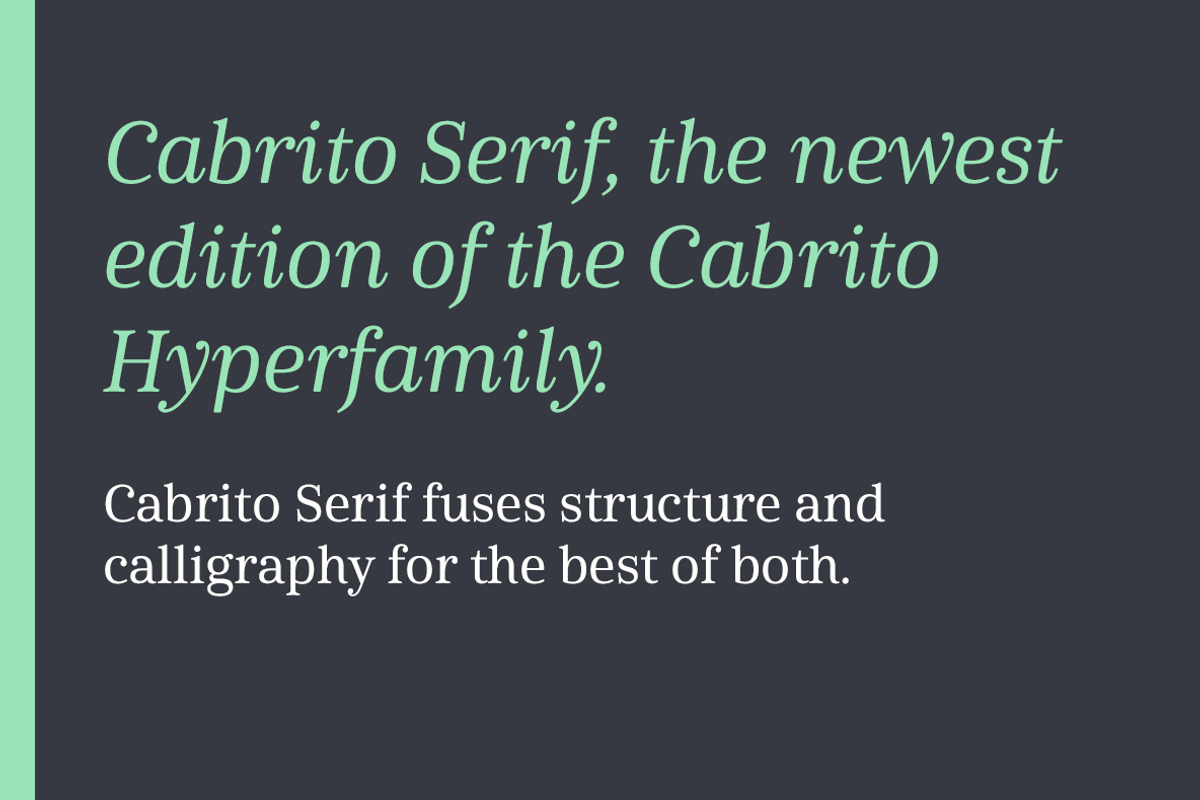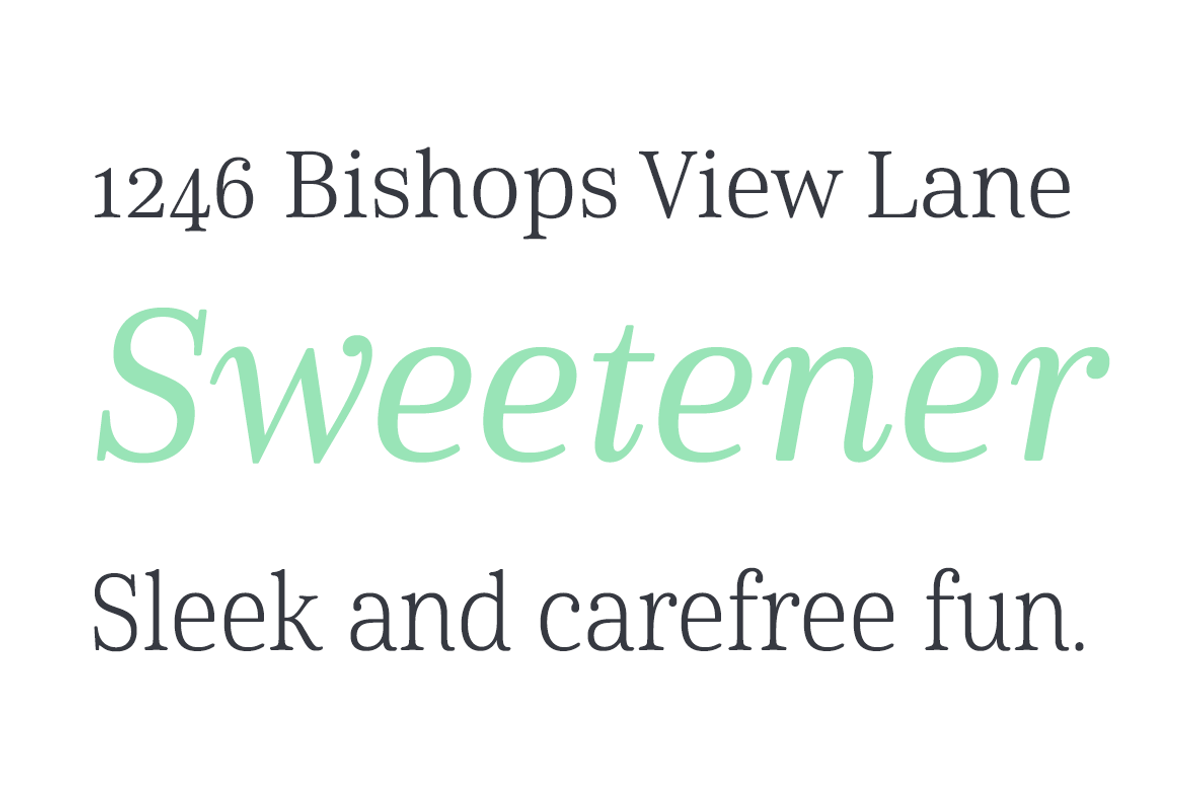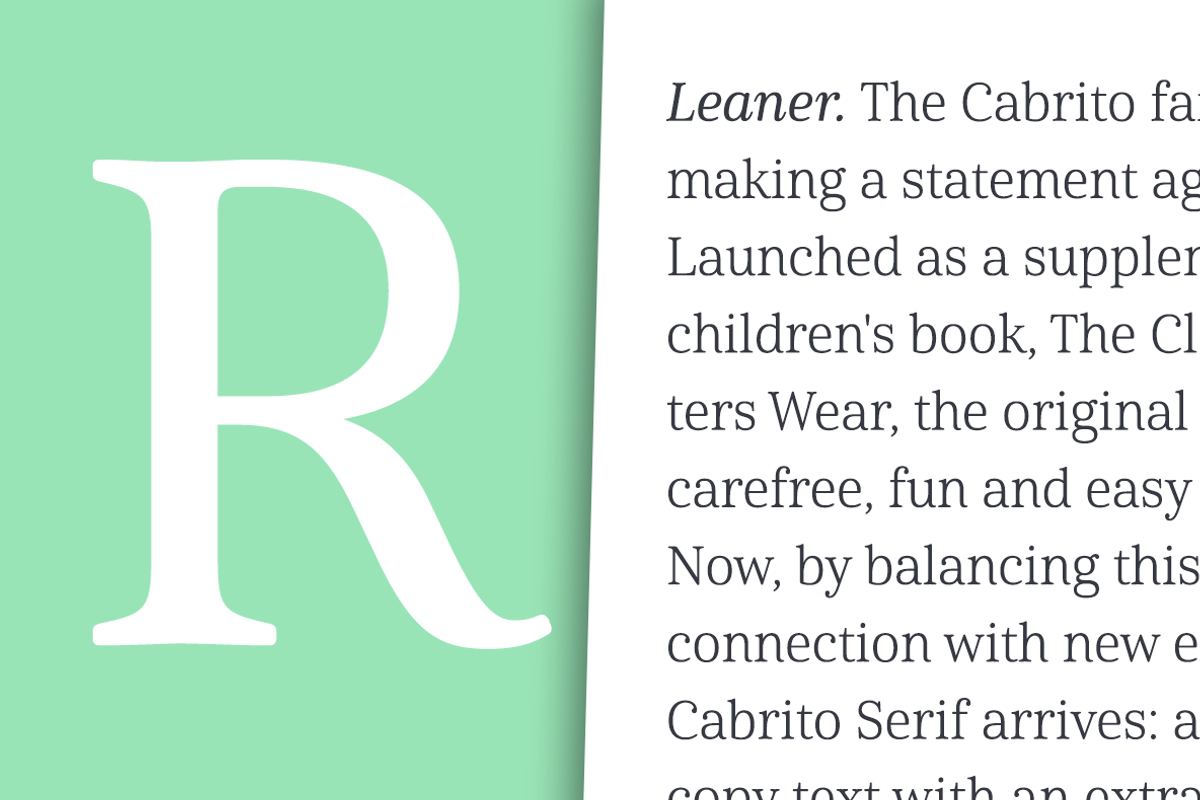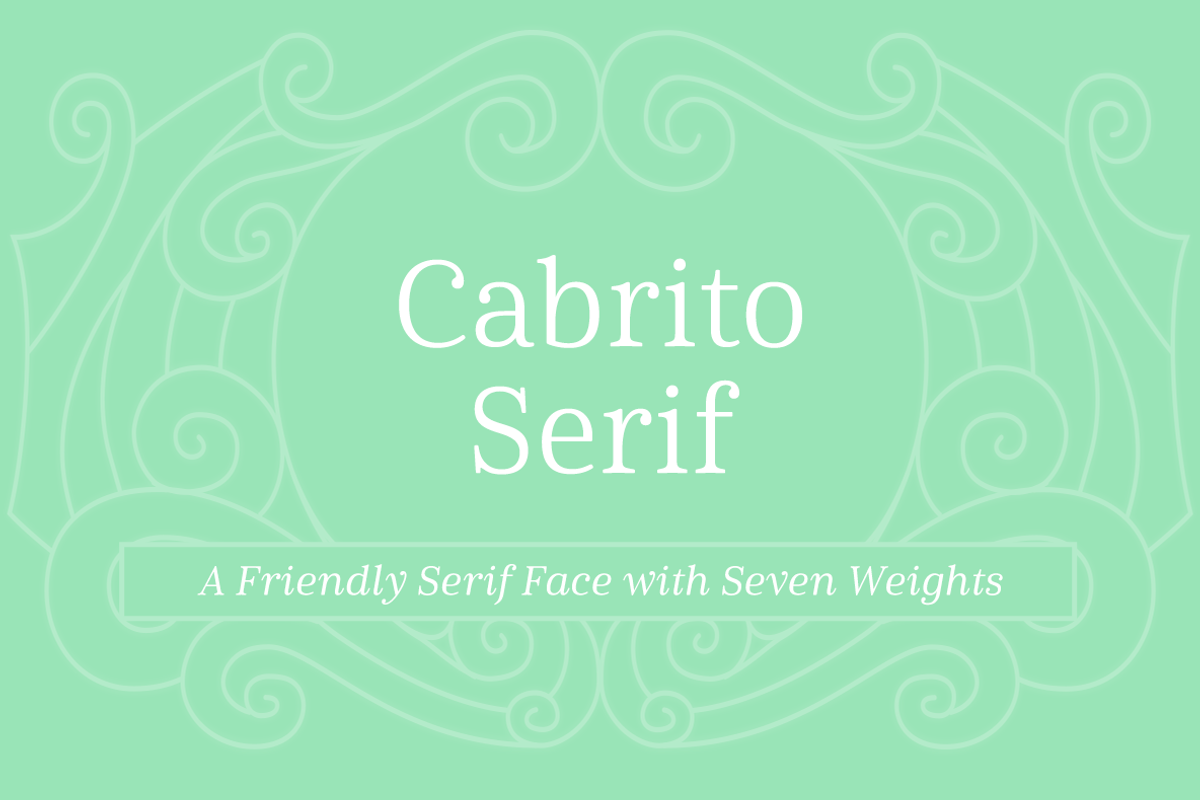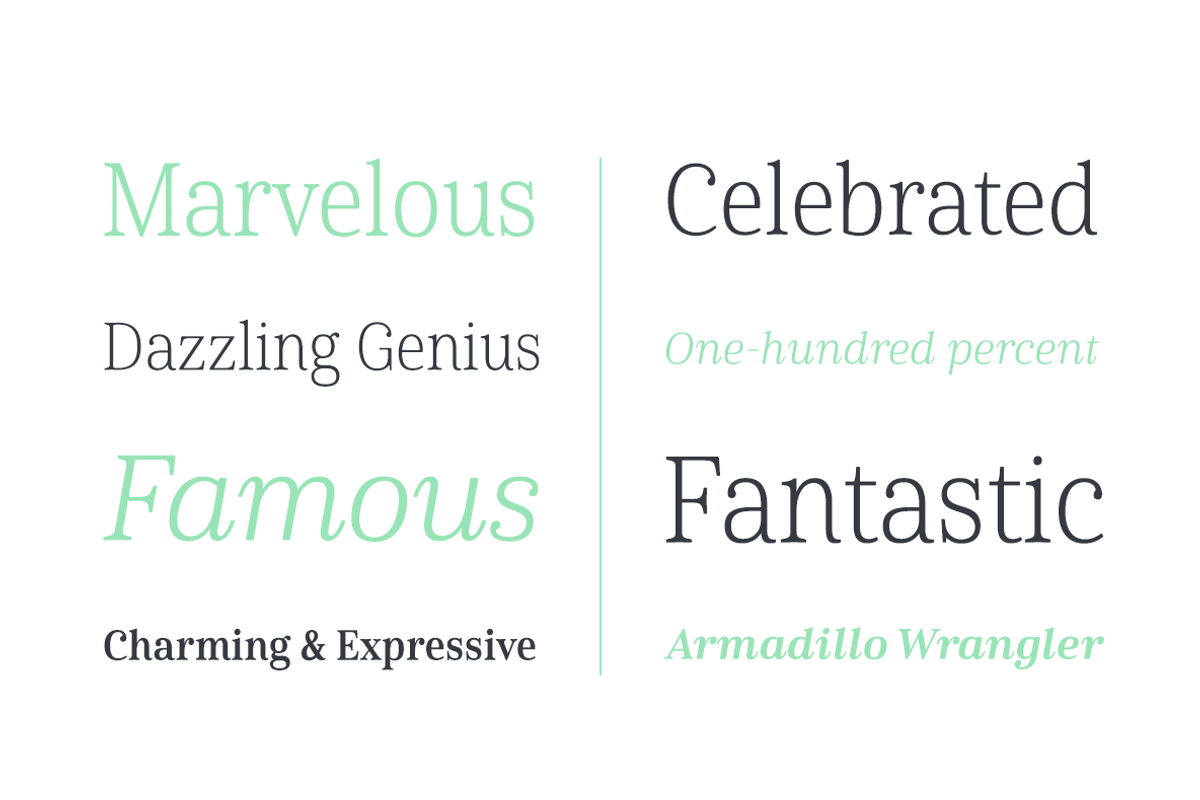
Cabrito Serif
The Cabrito family is making a statement again. Launched as a supplement to the children's book, The Clothes Letters Wear, the original Cabrito is carefree, fun and easy on the eyes. Now, by balancing this friendly connection with new elegance, Cabrito Serif arrives: attractive copy text with an extra sophisticated sensibility incorporated into the design. Still bright and playful, this new Cabrito is cleaner and leaner, ensuring that its polished appearance retains legibility.
54 fonts include upright alternates, ligatures, and old figures. The range includes extended and condensed variants. To see any of these interactive features, see the PDF manual. The family also includes language support for 72 Latin-based languages, and there are more than 600 glyphs. Cabrito Serif can be used for logos and packaging, as well as for brochures and web pages. It’s readability makes it an excellent choice for a wide range of jobs.
Take a walk with Cabrito Serif and see how much fun it is. By the way, look at some other Cabrito members and see how much you love the original, Inverto, Contrast or Didone.